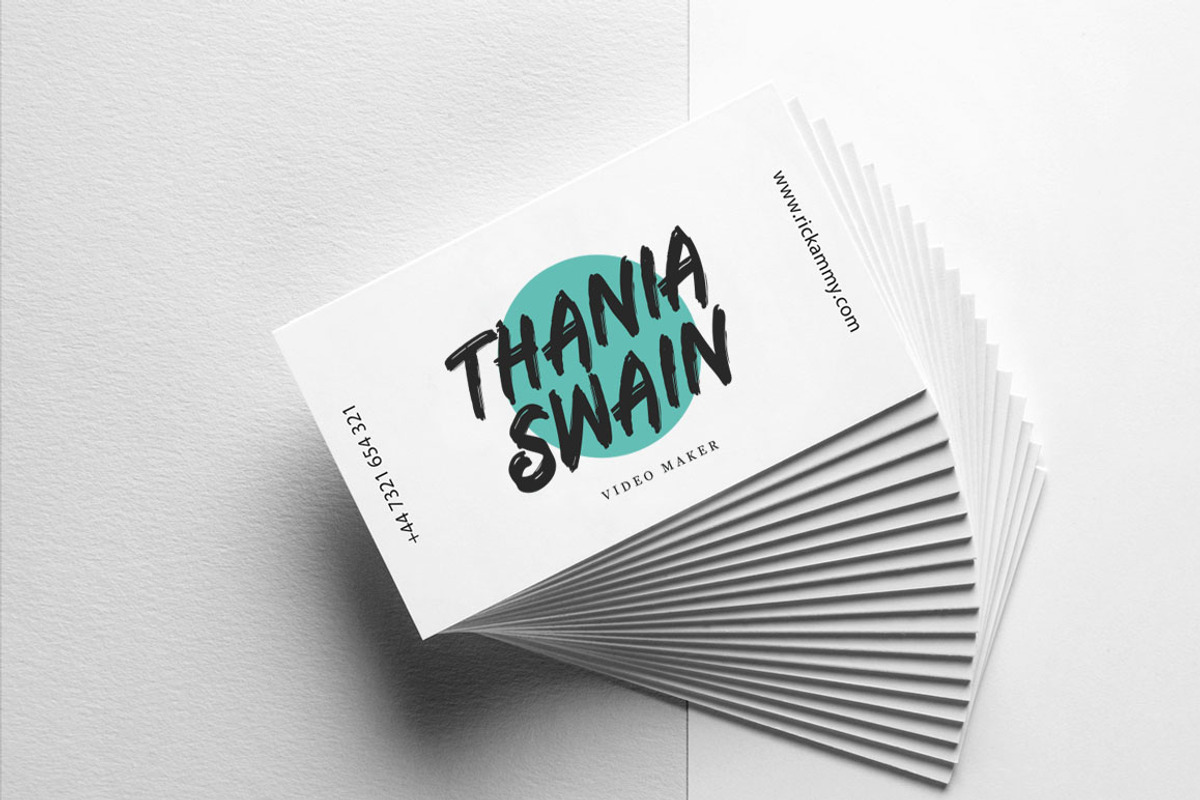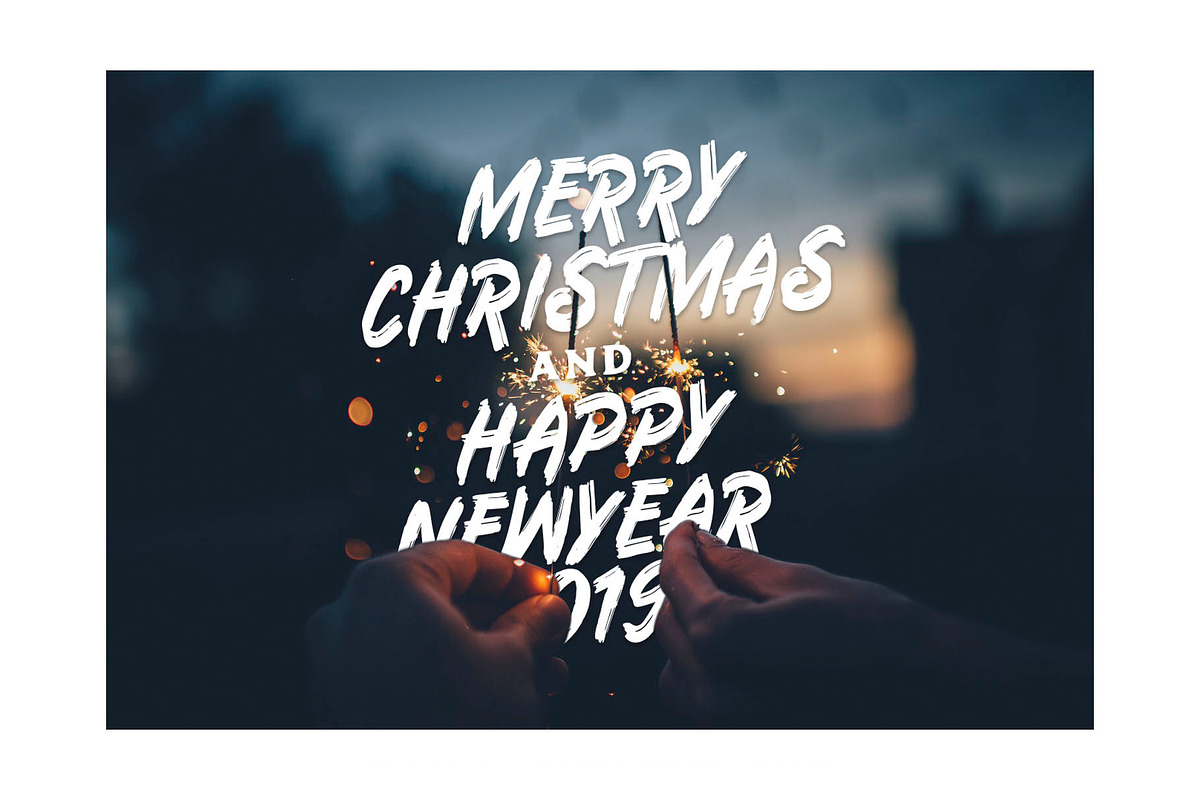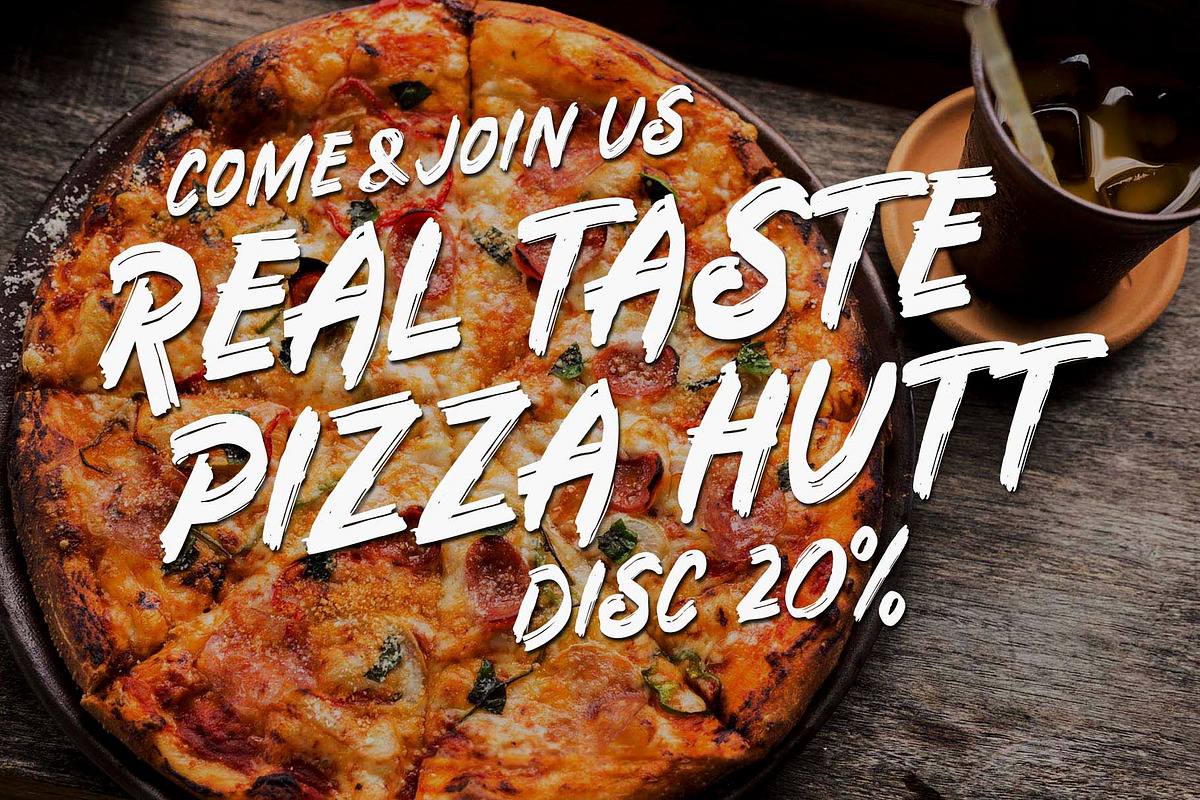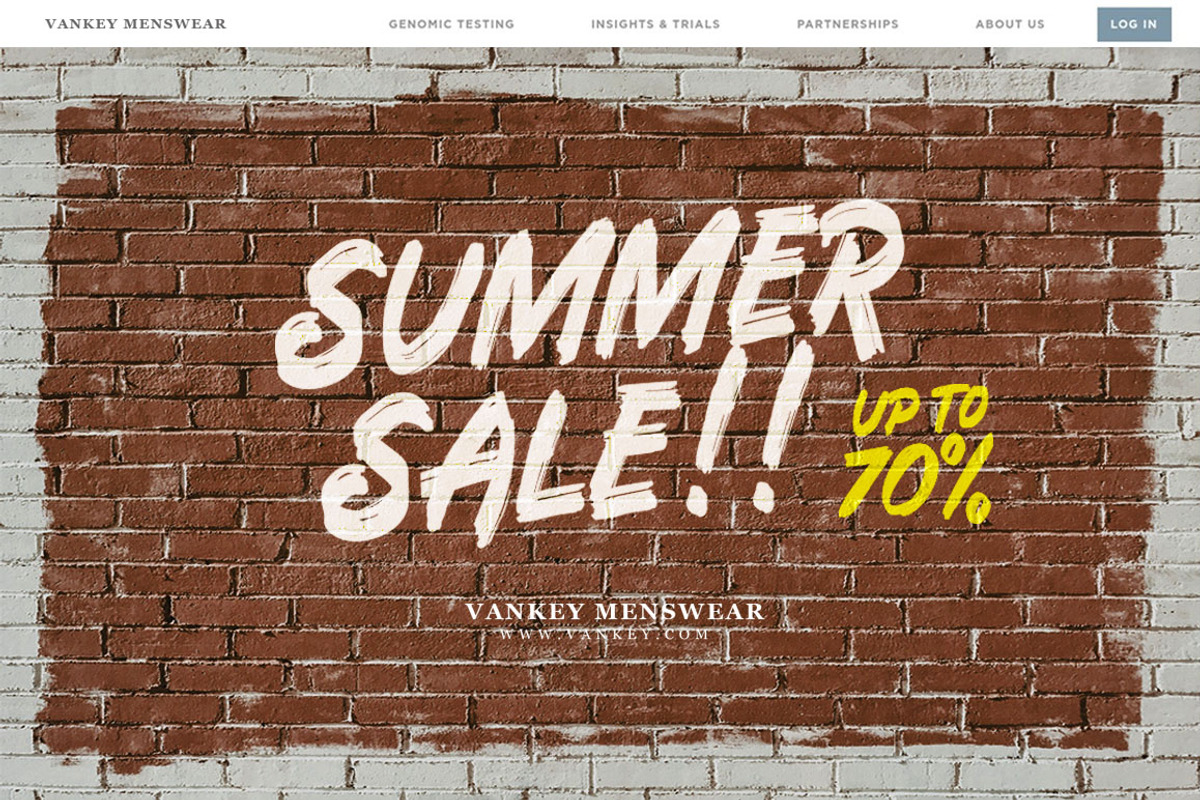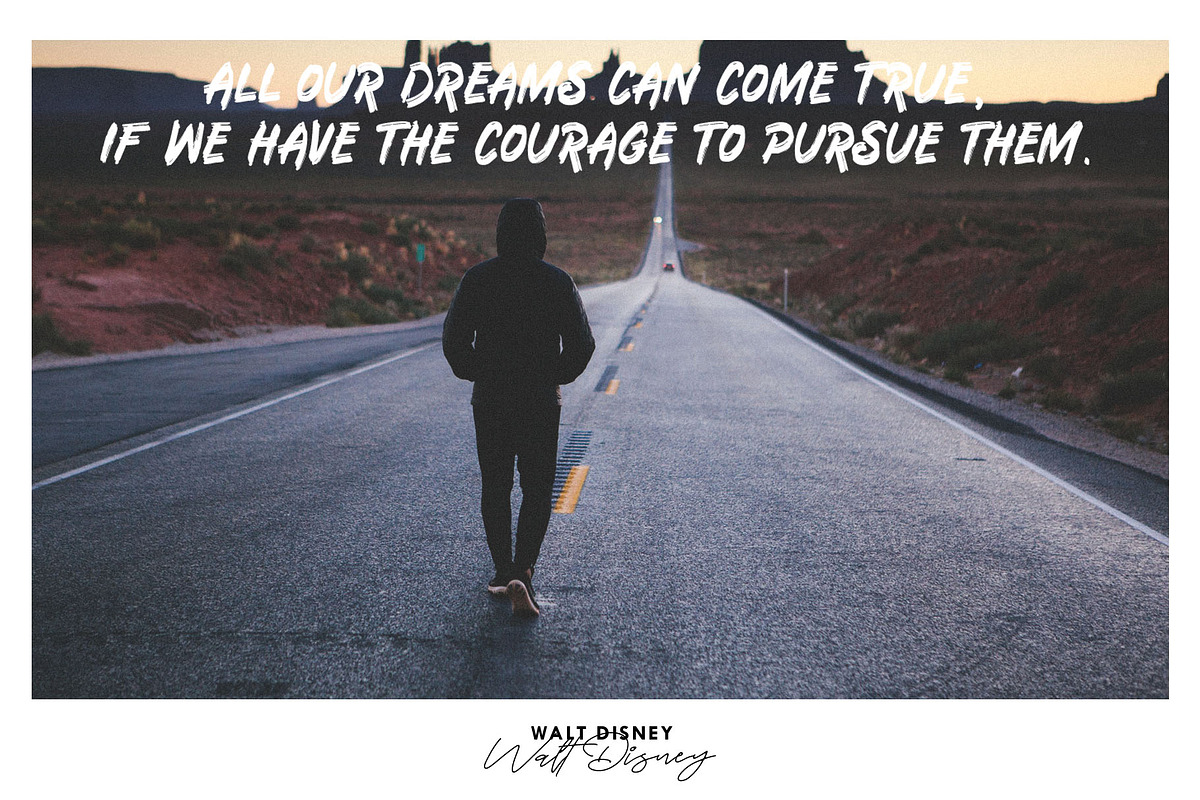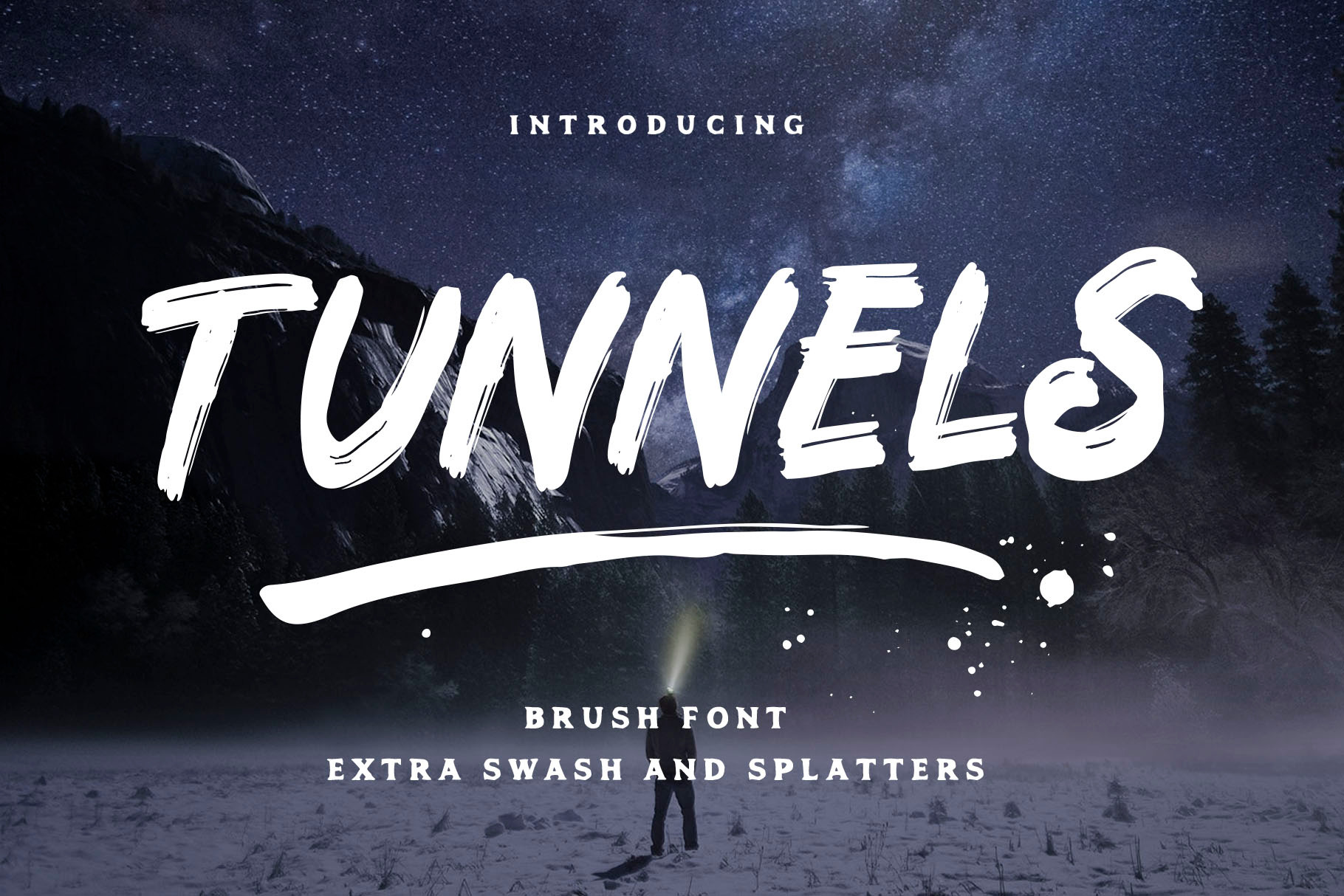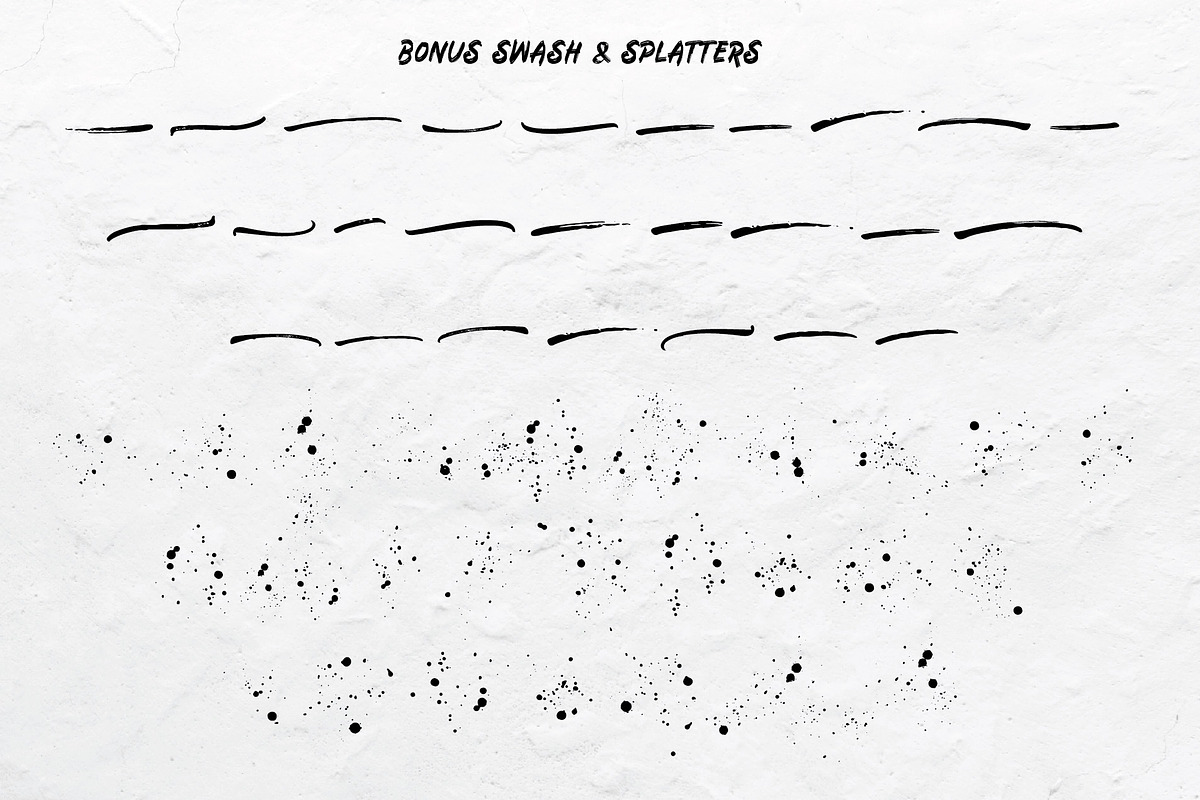
Tunnels Brush Font (Extras)
Tunnels is a hand-painted font that each character is carefully painted to perfection. detail is maintained when the character is digitized. Thick brush fonts full of energy with extra attention to quick sweeps and sharp details, Tunnels is guaranteed to deliver a very loud & fast message; ideal for logos, clothing, quotes, product packaging, or anything that requires brush and thick typography.
This is a large and rough and thick brush display font, with a little street punk attitude. It will be perfect for posters, packaging, advertisements, headlines, branding, signboards, and whatever you want from the brush and streetwear look. This font can be paired perfectly, and the Swash collection is very useful and the bonus splatter is suitable for what you want.
Spray / Splatter Brushes - can help you make the texture of the spray paint effect.